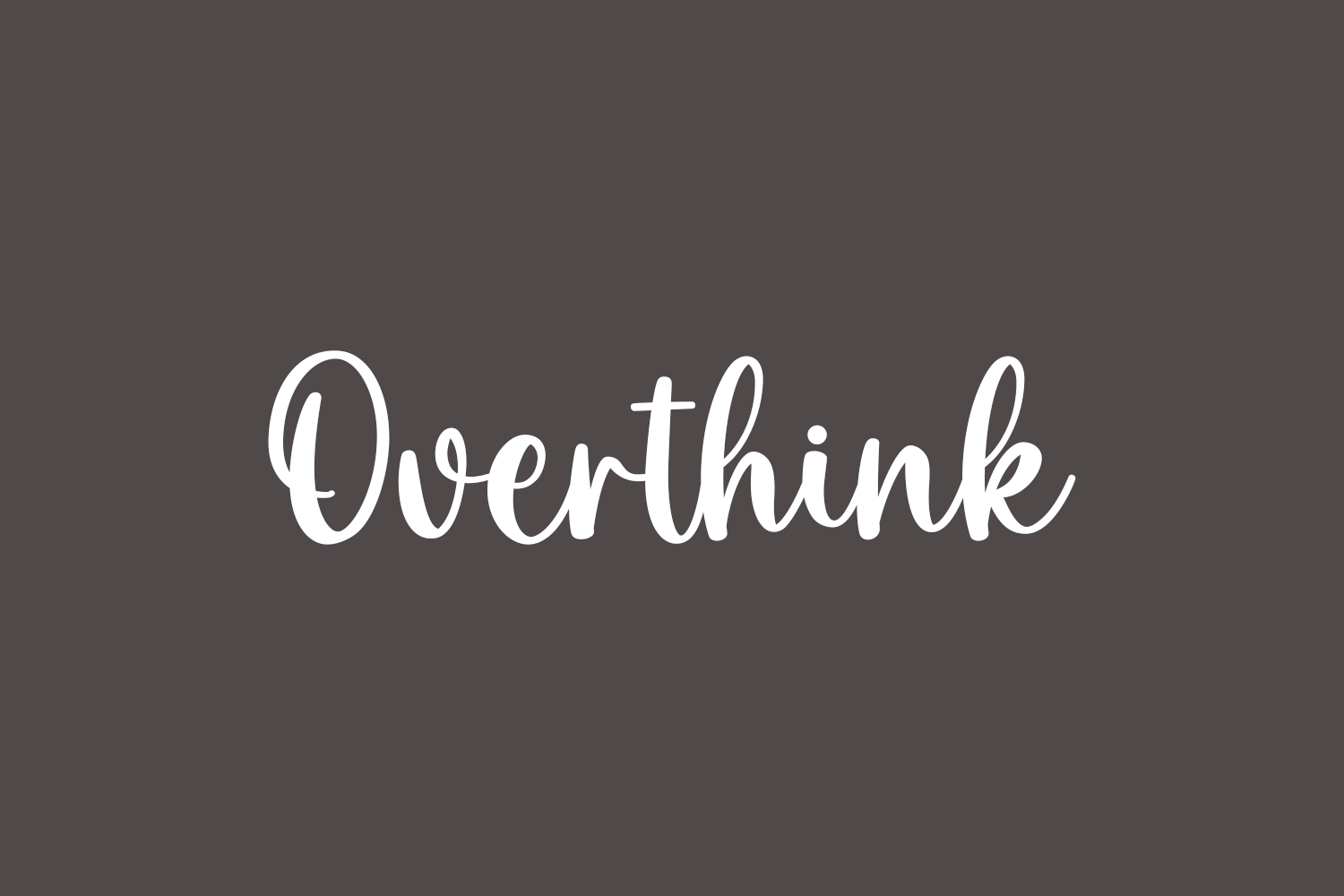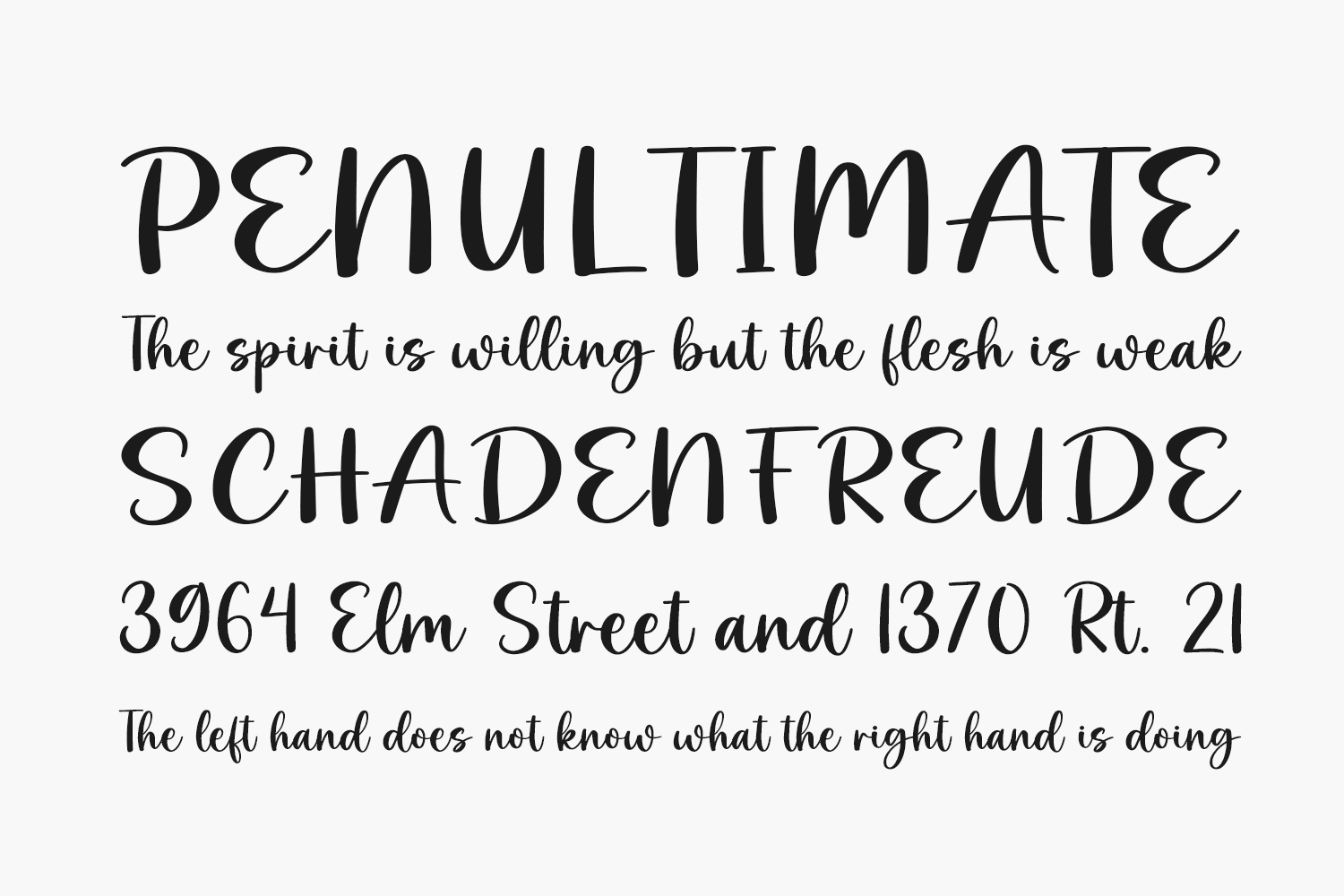
Overthink Free Font embodies a graceful and refined handwritten font, characterized by its delicate and flowing aesthetic. With its impeccably balanced and beautiful characters, this font seamlessly complements a diverse range of design projects. Overthink Free Font is free for personal use only. Please purchase the full version for commercial use.
Designed by Graphix Line Studio